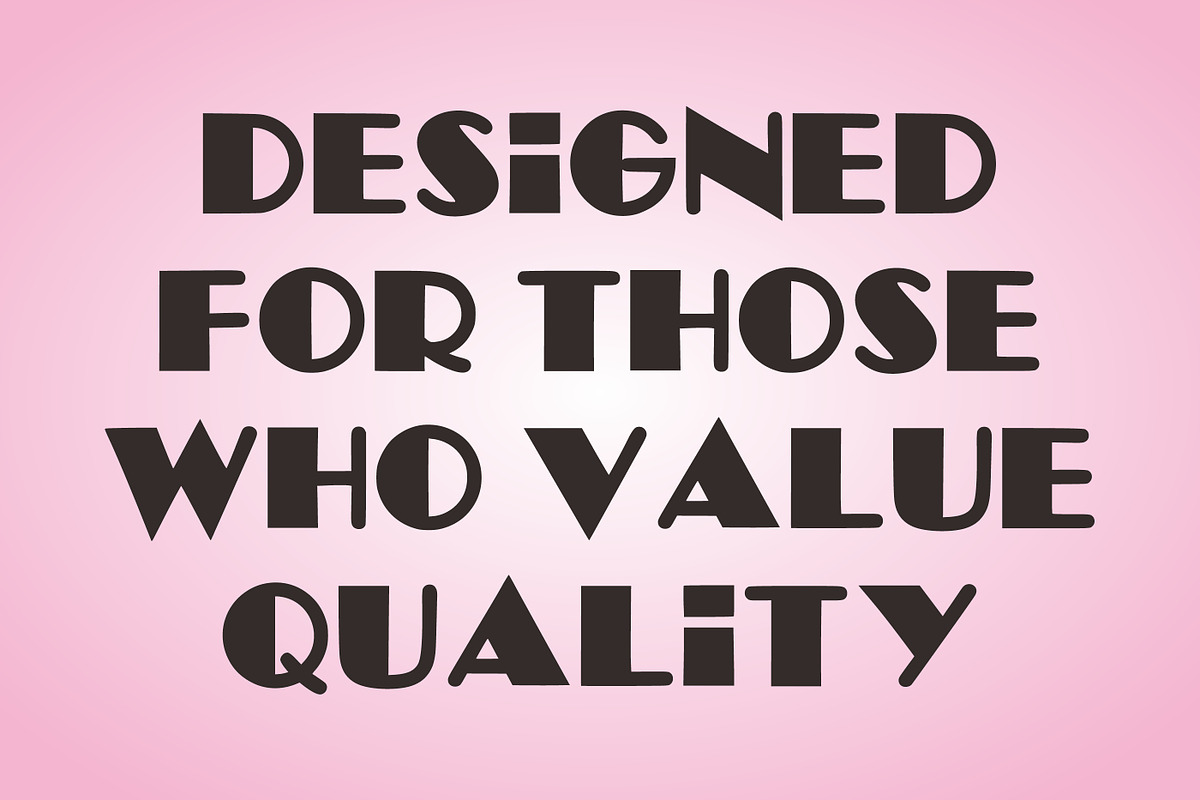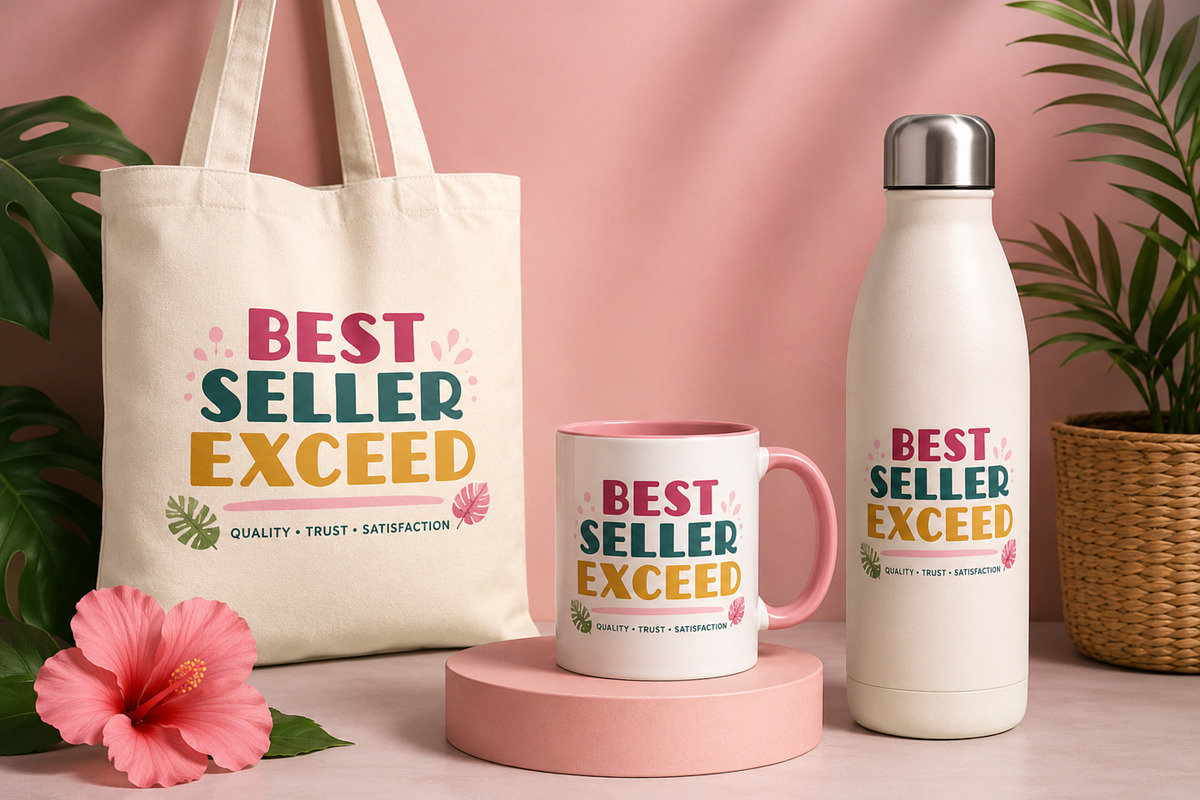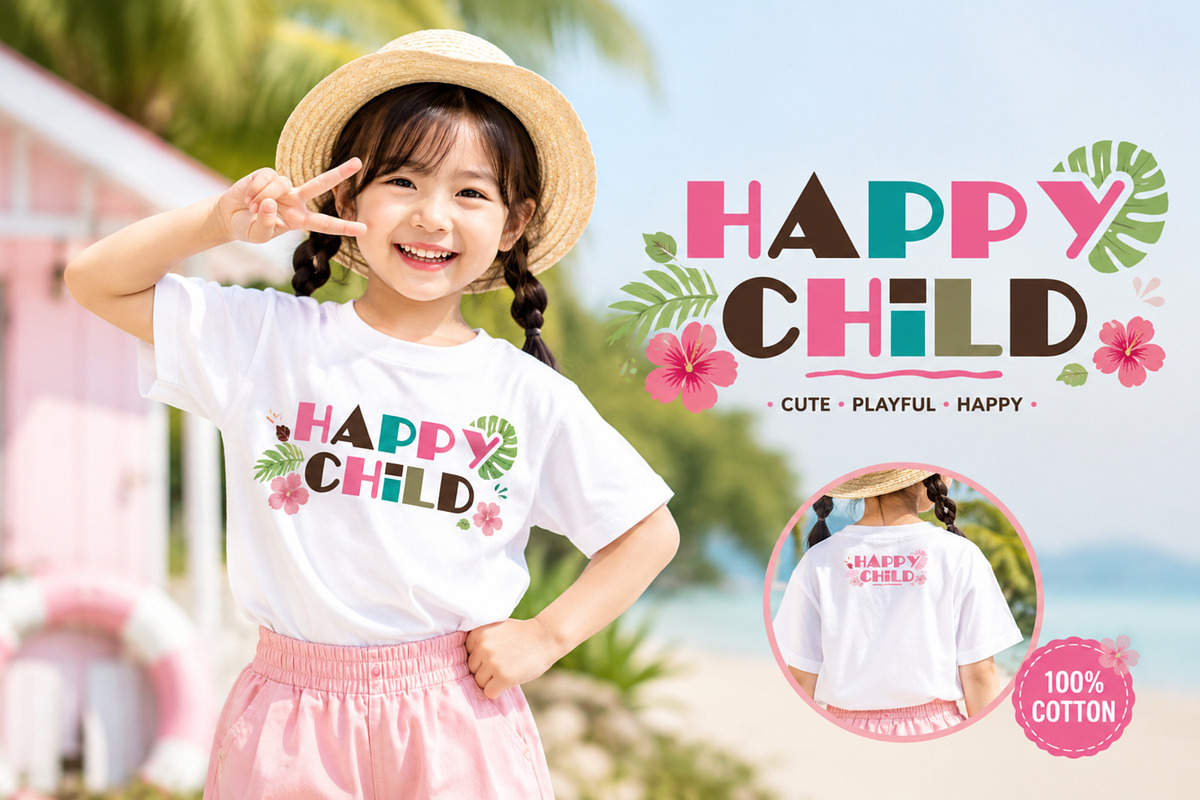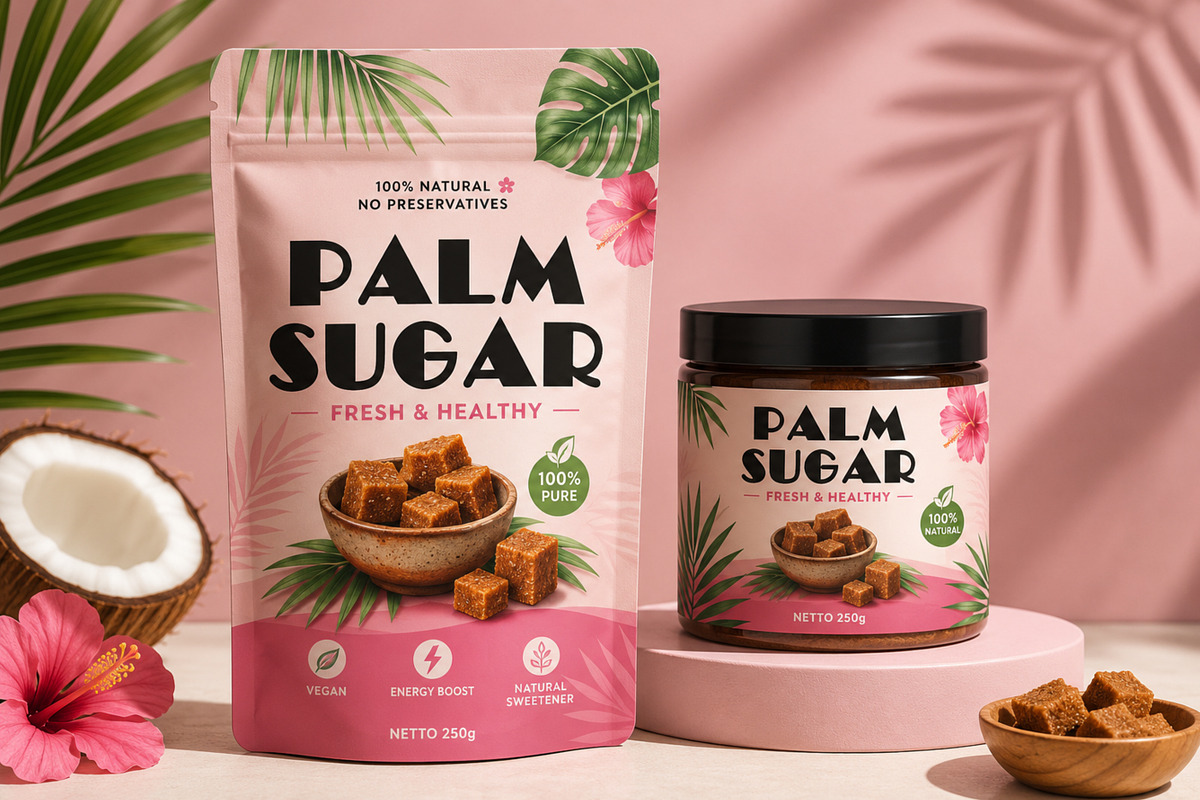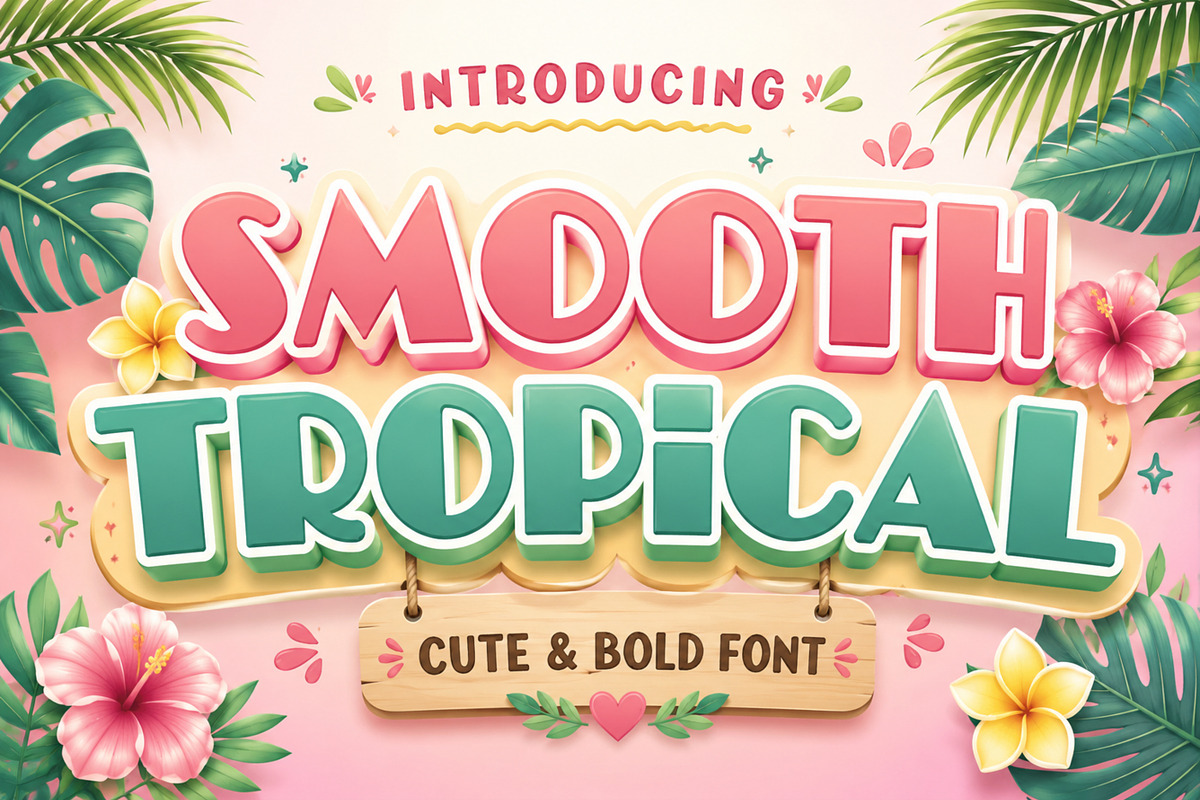
Smooth Tropical – Cute Bold
Bring tropical vibes into your designs with Smooth Tropical, a cute and bold display font that combines soft rounded letterforms with a fresh summer aesthetic. Designed to stand out while remaining friendly and easy to read, this font is ideal for playful branding and eye-catching headlines.
Whether you're creating beach event posters, tropical drink labels, children's products, vacation graphics, or colorful social media content, Smooth Tropical adds warmth, happiness, and personality to every project.
Tropical Branding
Summer Logos
Beach Party Invitations
Resort & Travel Posters
Kids Products
Children's Books
Food & Drink Packaging
Fruit Labels
Stickers
T-Shirt Designs
Greeting Cards
YouTube Thumbnails
Printable Crafts